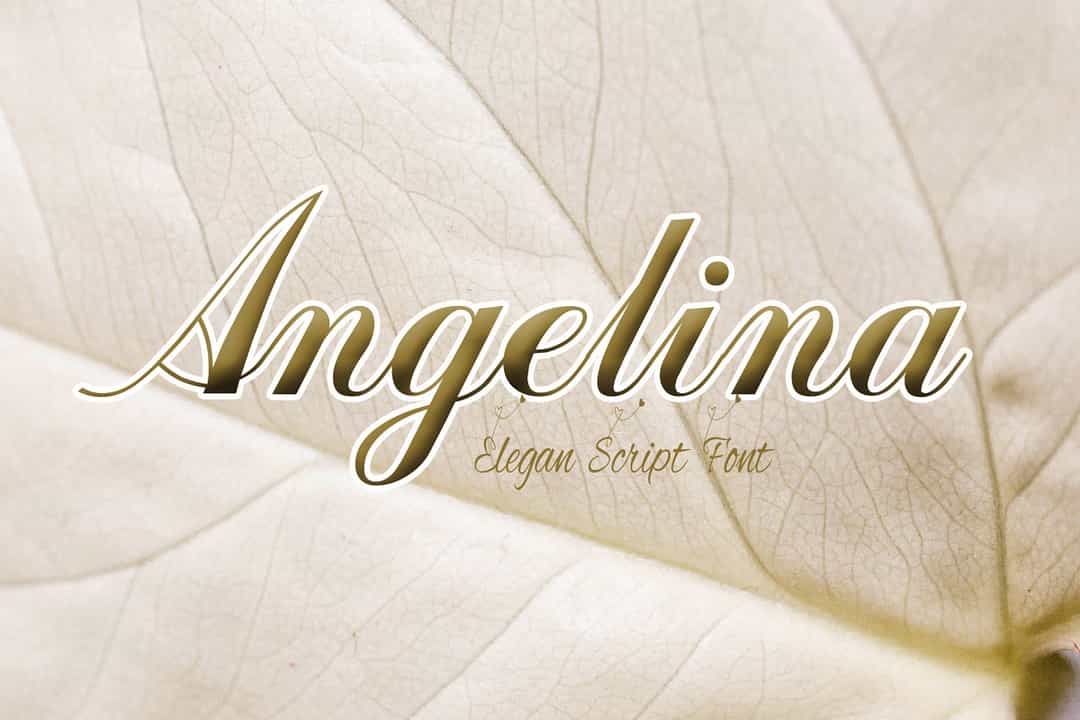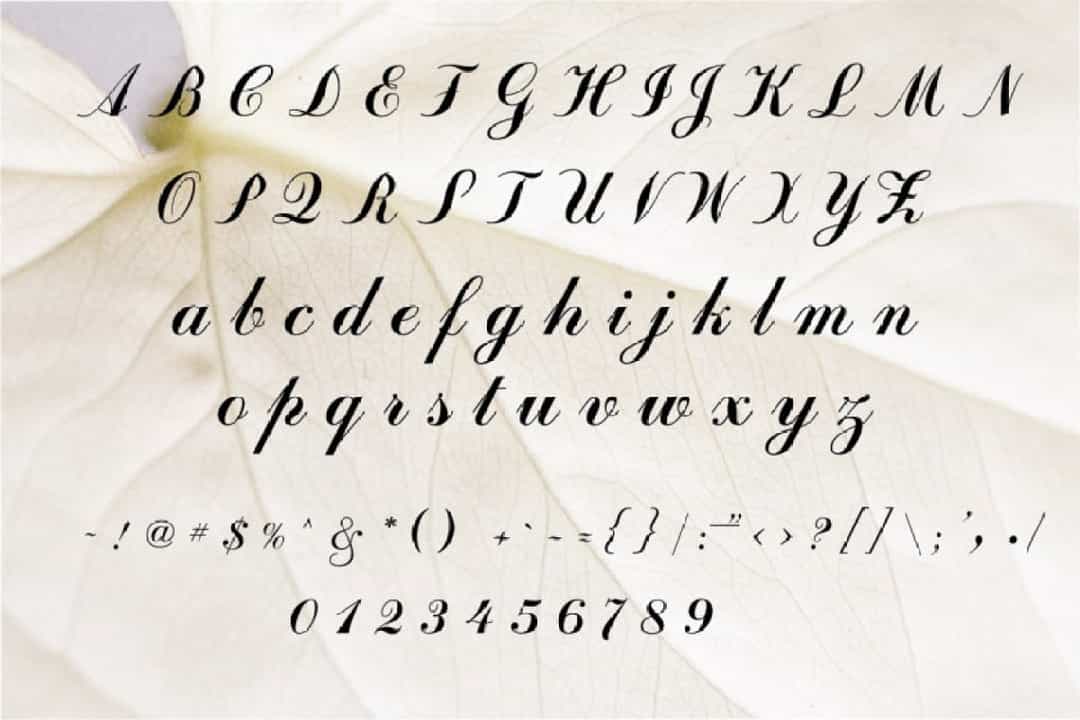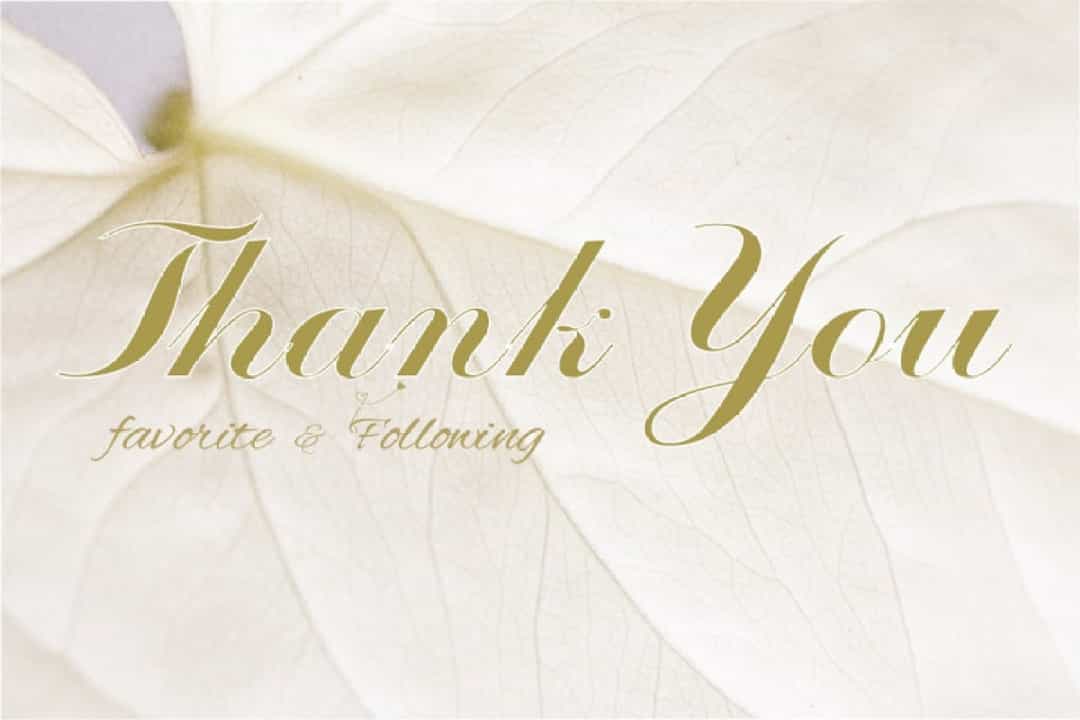
Angelina is a modern and fashionable script font which is suitable for any kind of project. angelina is simple yet it has a unique design that can be used for wedding invitations or stationery or even Instagram post!